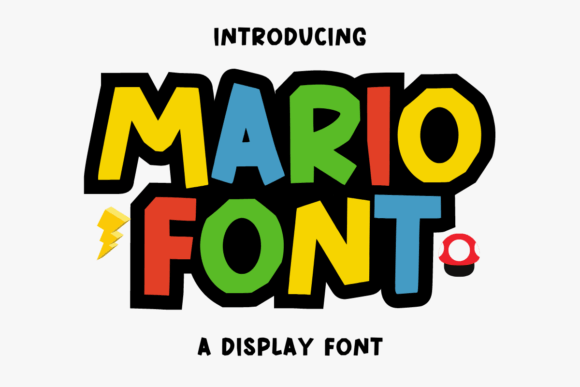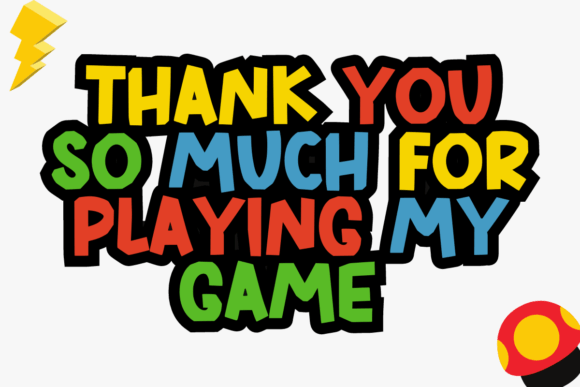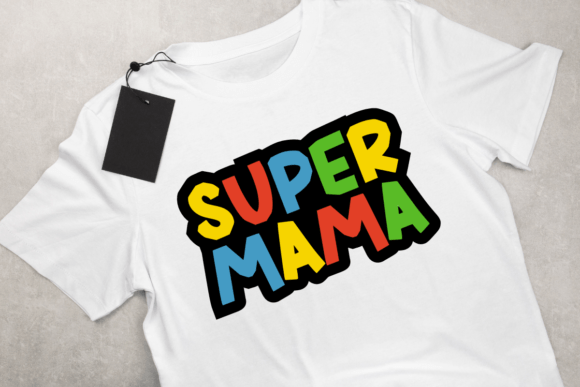
Mario Font
About the Mario Font
Unleash your creativity with Mario Font, a versatile font perfect for a wide range of applications. Mario is a cool, bold, and fun display font. Add it with confidence to your favorite creations and let yourself be amazed by the resulting results. This font is very suitable for children, t shirts, quotes, and others
Mario’s bold, playful energy makes it ideal for headlines, posters, and branding projects targeting a young, energetic audience. It works exceptionally well for children’s products, t-shirt designs, and short, impactful quotes where its fun character shines. However, its condensed letterforms and strong weight are unsuitable for body text or UI elements requiring high readability.
Pairing Mario with a clean sans-serif like Open Sans for body copy creates a strong visual contrast and balanced hierarchy. For a more playful feel, consider pairing it with a rounded geometric sans-serif like Circular Std. A classic serif like Garamond could add a touch of sophistication, contrasting Mario’s boldness with refined elegance.
Its overall personality is best described as bold and friendly, making it a great choice for brands conveying fun, approachability, and youthful energy. Avoid using Mario where a serious or refined tone is required.
Mario Font Usage Examples
Mario Font Example